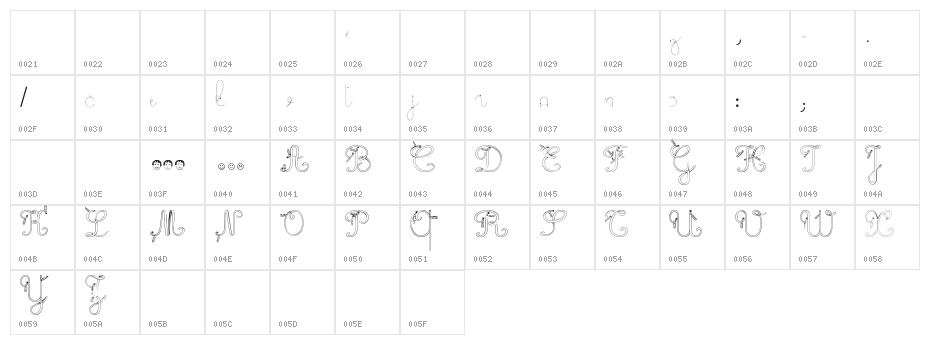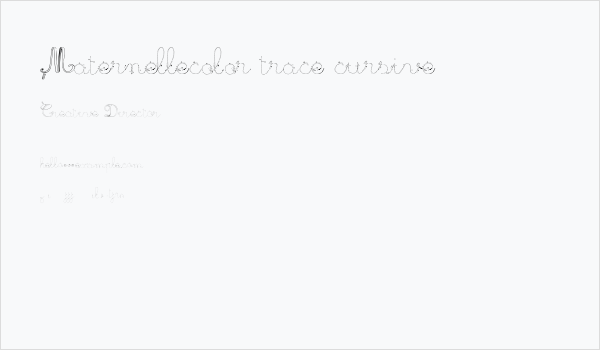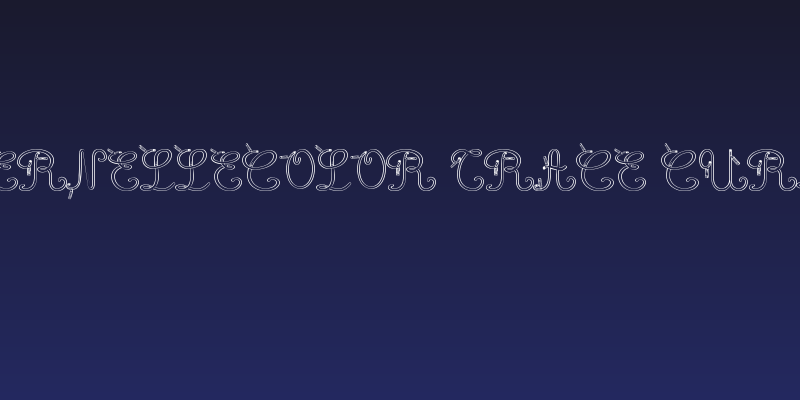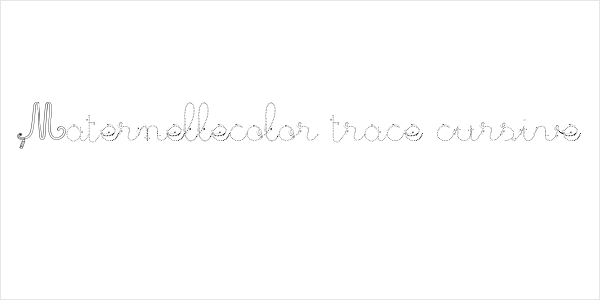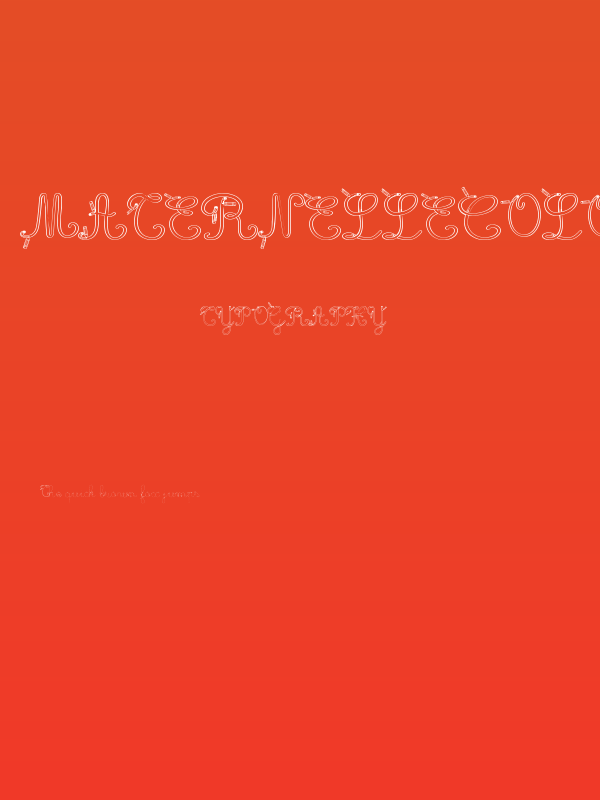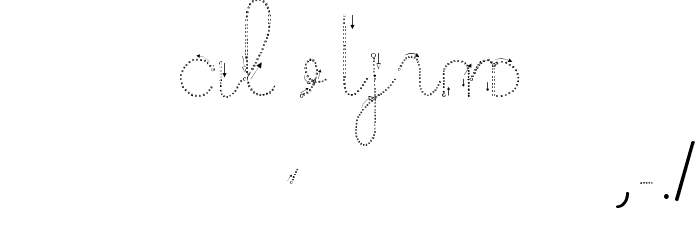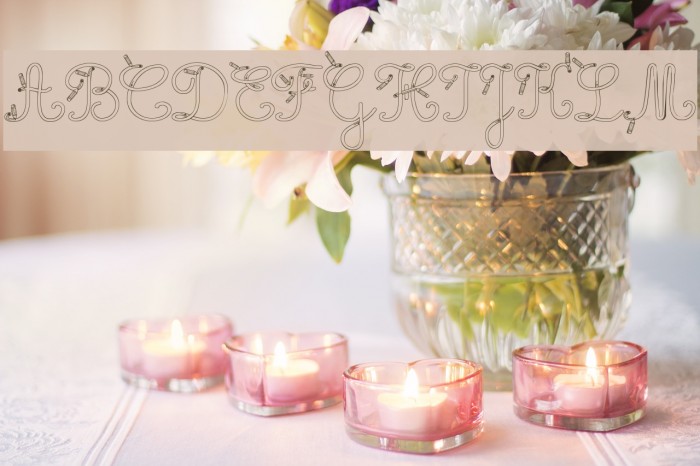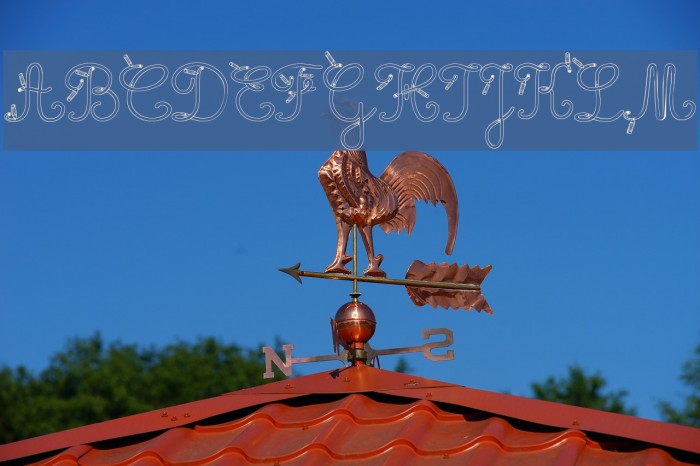
Maternellecolor trace cursive Font
Maternellecolor trace cursive Description
This font is a playful and educational cursive style designed to aid in handwriting practice. It features dotted lines with directional arrows, guiding the user on how to form each letter correctly. The uppercase letters are ornate with loops and swirls, adding a decorative touch, while the lowercase letters maintain a consistent, flowing script. The numbers and special characters follow the same dotted and instructional style, making it ideal for educational purposes. The font's design is both functional and visually appealing, encouraging learning through its engaging format.
| Overall Style | Educational, Decorative |
| Use Case | Handwriting practice, Educational materials |
| Proposed Projects | Ideal for educational materials, handwriting worksheets, and children's learning resources. |